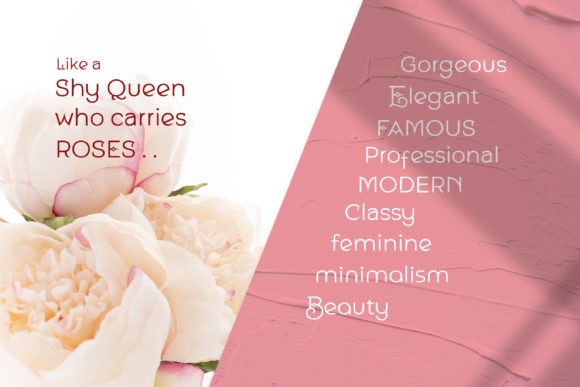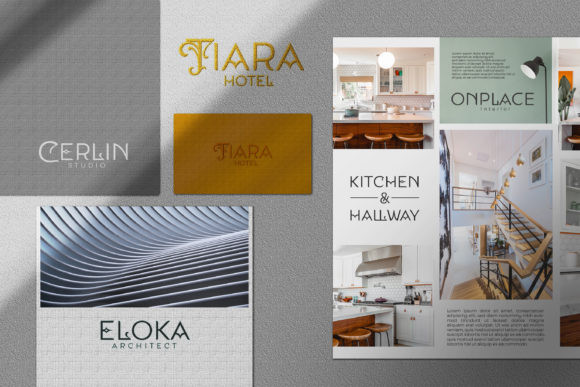
Queen Shy Font
Queen Shy is a stunning font that radiates professionalism, elegance, and luxury. It will add a sophisticated charm to any design project!